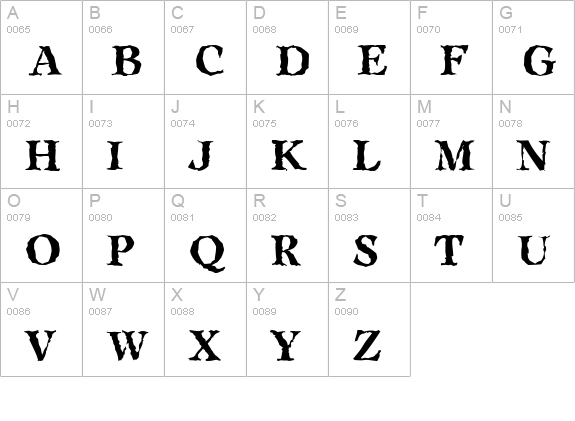
LeamingtonRandom-Bold Font Details
LeamingtonRandom-Bold is a strong, high-contrast variant in the LeamingtonRandom typeface family \xE2\x80\x94 well suited to headlines, attention-grabbing titles, and strong calls-to-action.
LeamingtonRandom-Bold font is a striking and versatile typeface that is sure to make your designs stand out. This bold and modern font exudes confidence and style, making it perfect for a wide range of projects. Whether you're working on a poster, logo, or website, LeamingtonRandom-Bold font will bring a bold and eye-catching element to your work. What's even better is that LeamingtonRandom-Bold font is completely free to download at FontsMarket.com. This means you can add this stylish font to your collection without any cost, making it a valuable asset for any designer or creative professional. Download LeamingtonRandom-Bold font today and elevate your designs with its bold and modern aesthetic. Let your creativity shine with this free and versatile typeface that is sure to make a statement in any project.